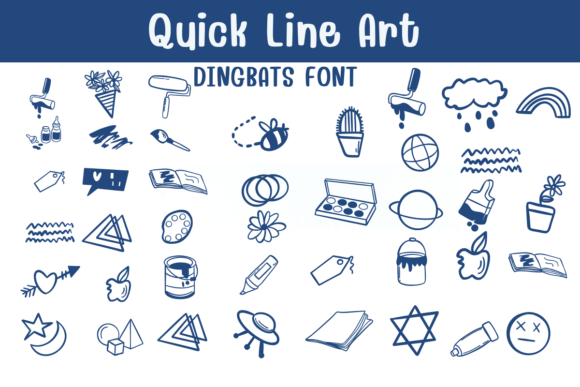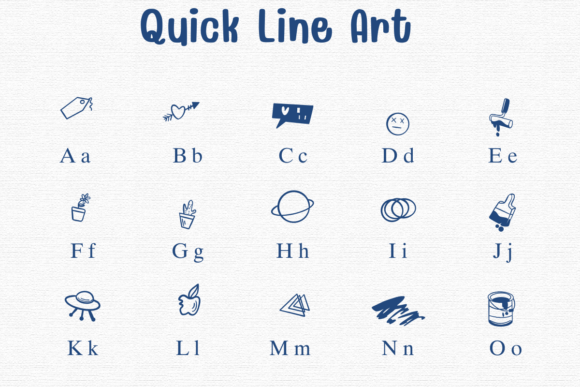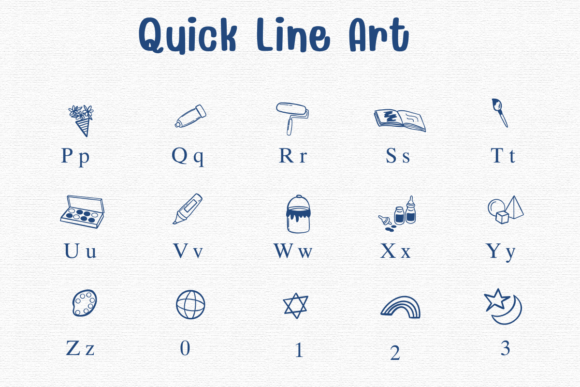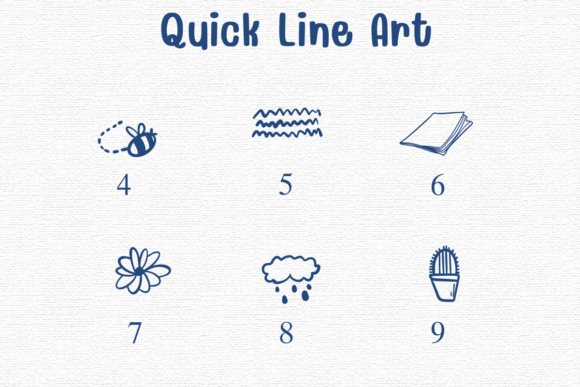
Quick Line Art Font
About the Quick Line Art Font
The Quick Line Art Font offers a perfect balance of form and function for your design needs. Quick Line Art is a playful and eclectic dingbats font filled with doodles of school supplies, art tools, plants, and cosmic icons. With its quick sketch feel, this font is great for stickers, coloring pages, school worksheets, and DIY creative projects.
Its playful energy makes it ideal for children’s books, branding for creative businesses (e.g., art supplies, crafting), and projects needing a handmade, whimsical touch. Avoid using it for large amounts of body text or situations requiring high readability; the informal style isn’t suitable for formal documents or user interfaces.
Pair it with a clean sans-serif like Open Sans for contrast and readability, or a rounded geometric sans-serif for a more unified playful feel. A simple serif like Lora could add a touch of sophistication if you need to balance the informality.
Quick Line Art’s core personality is undeniably youthful and spirited. It projects a sense of fun and creativity, making it perfect for brands that want to convey approachability and lightheartedness.
Quick Line Art Font Usage Examples
Quick Line Art Font Example